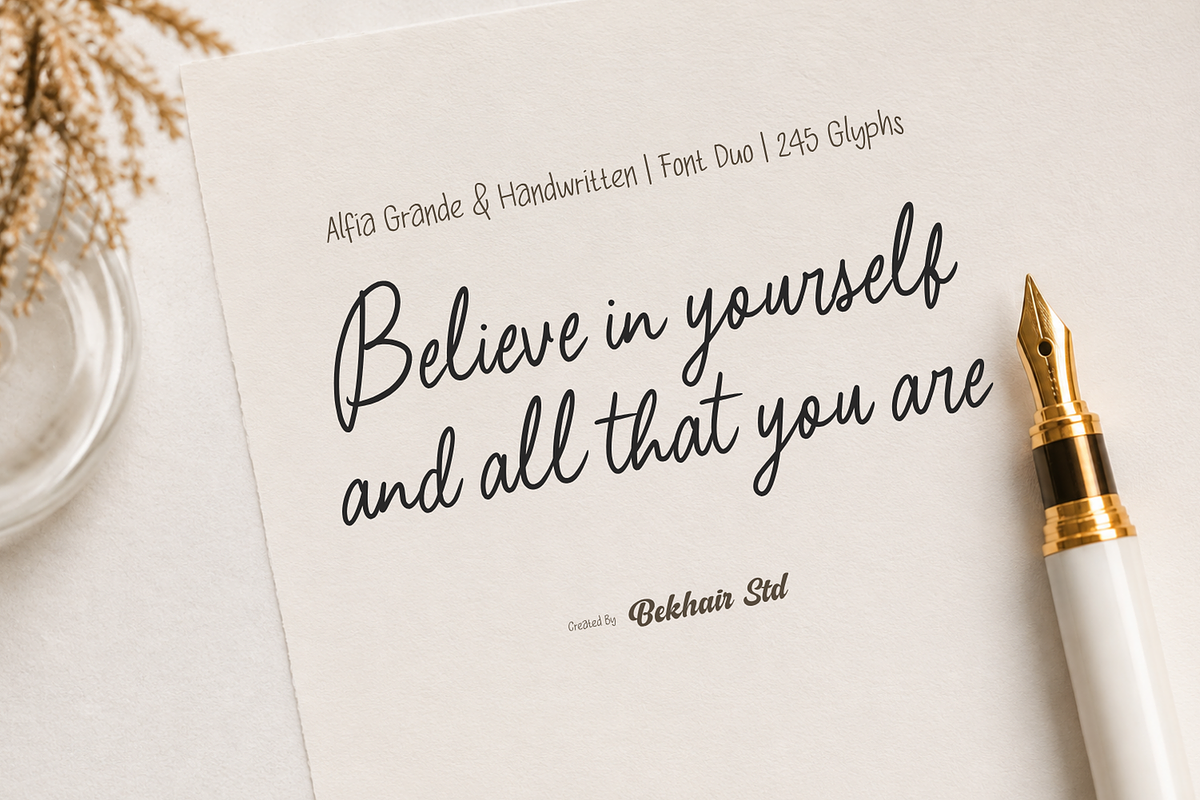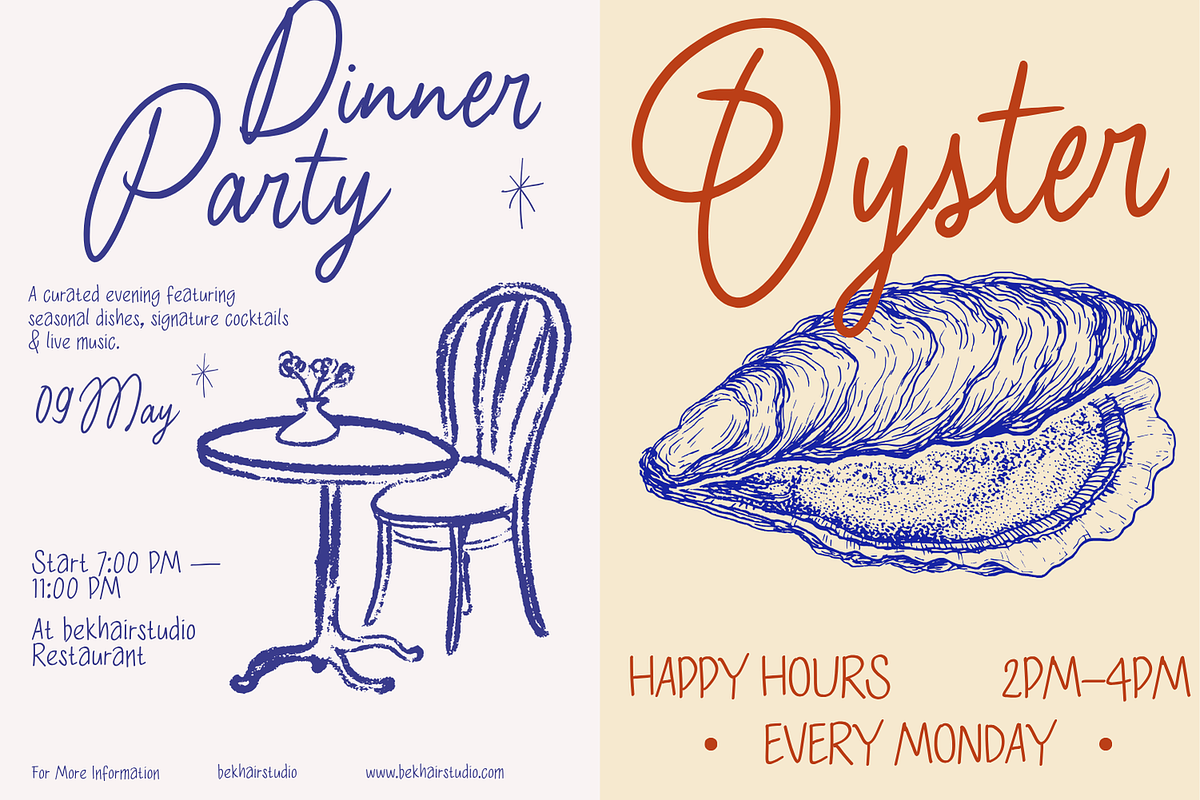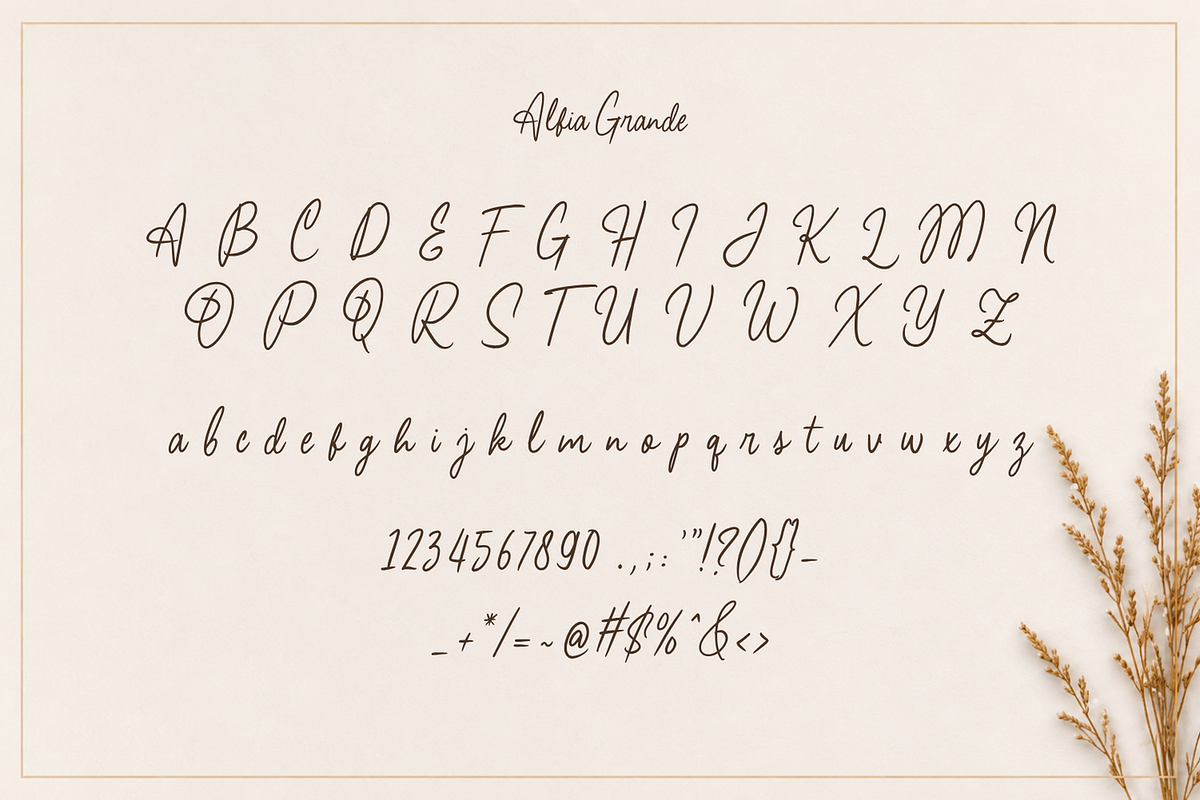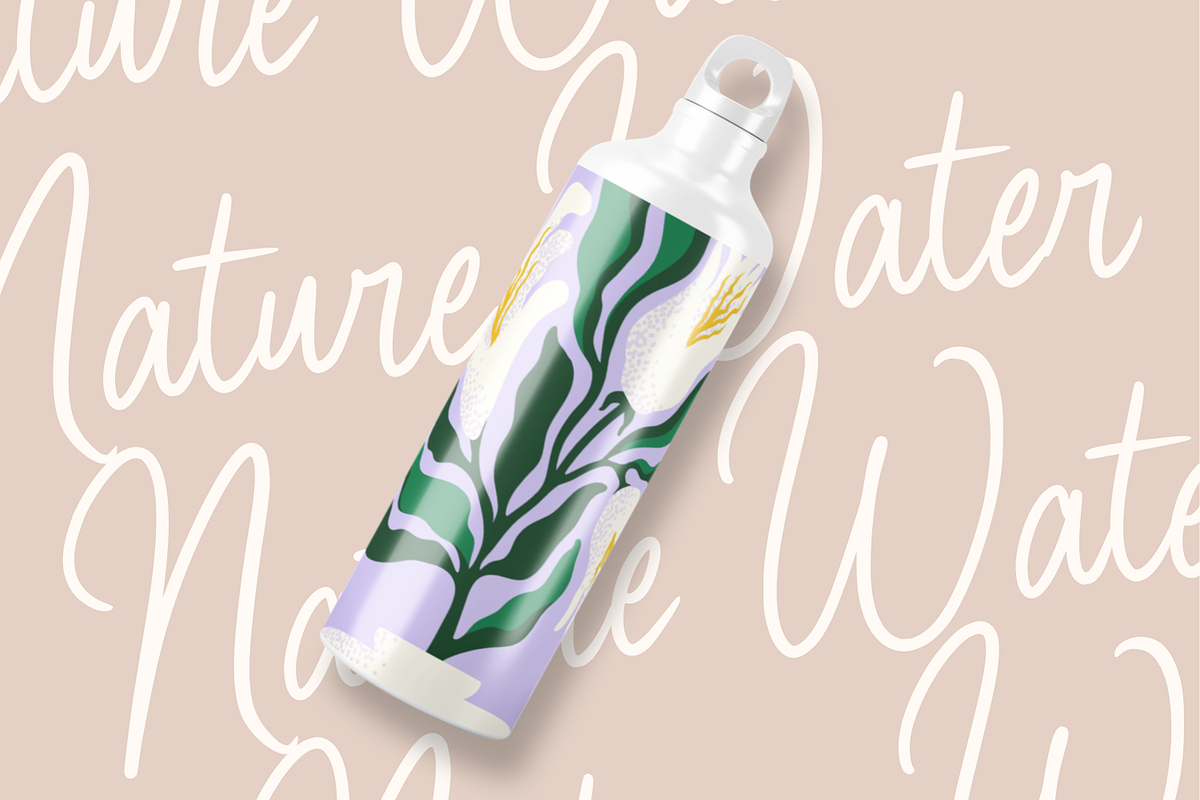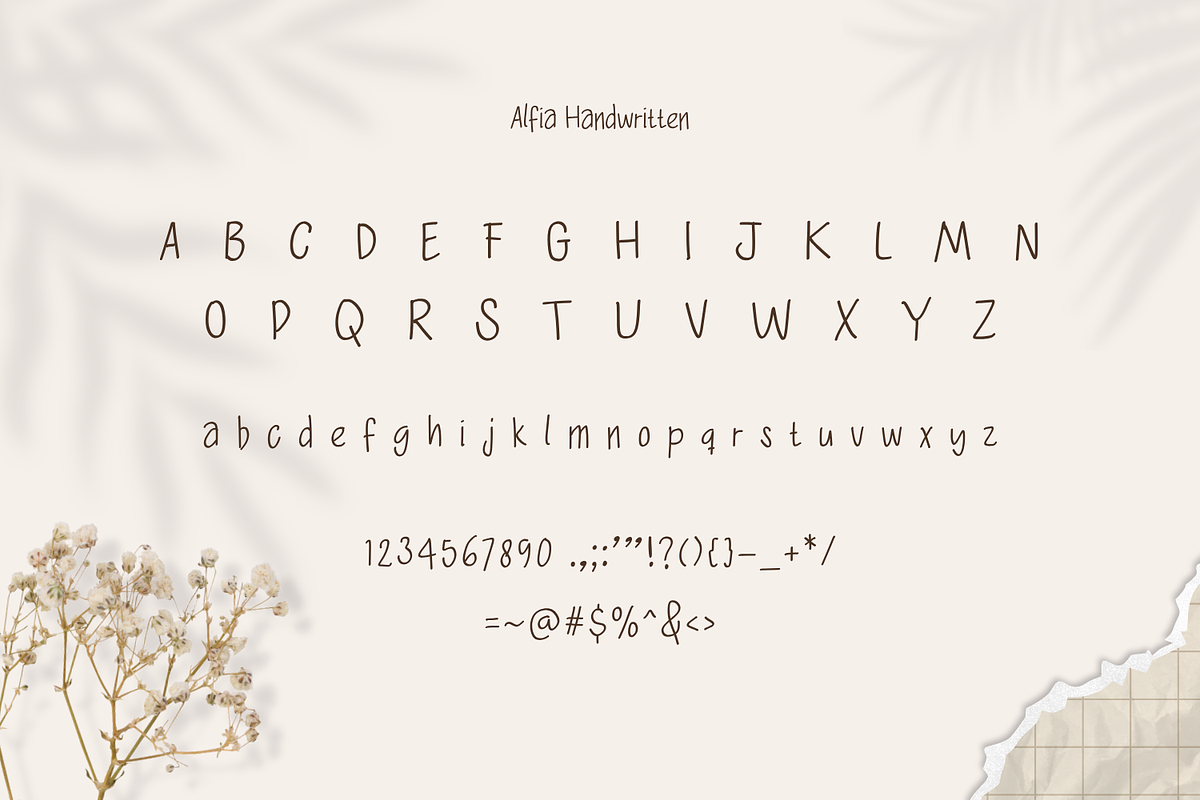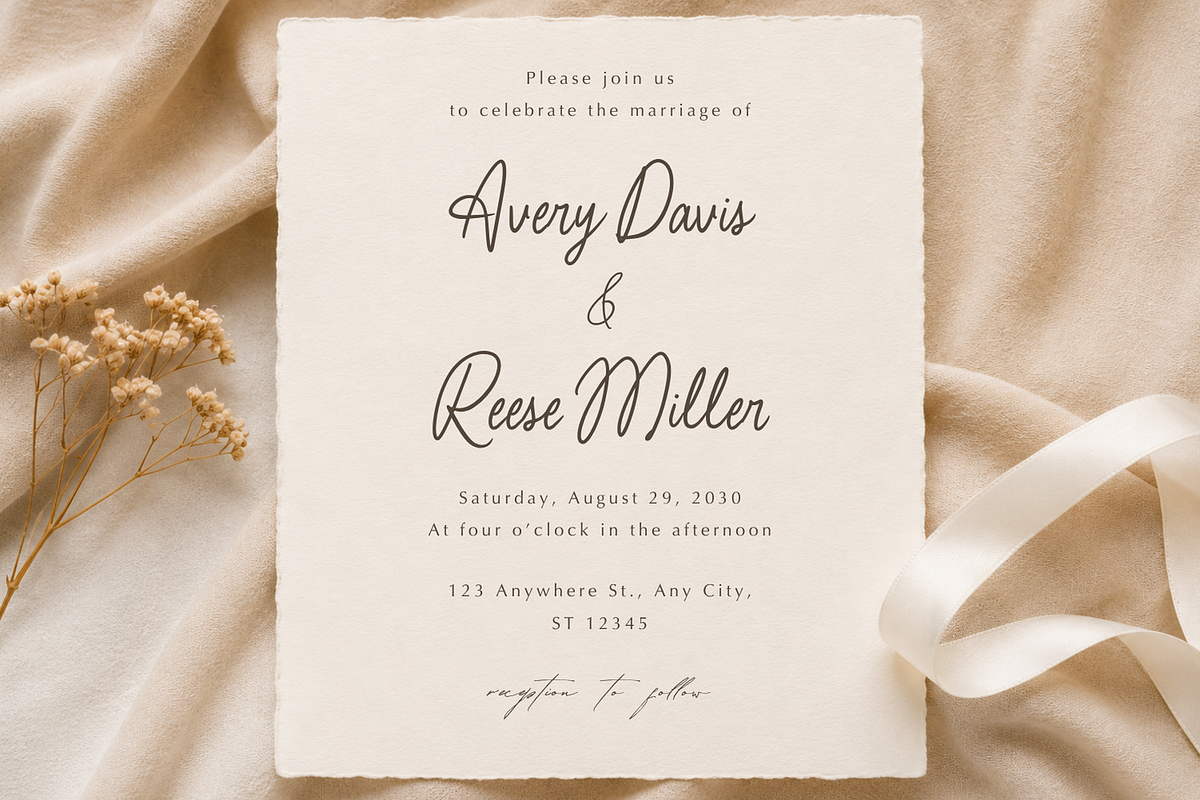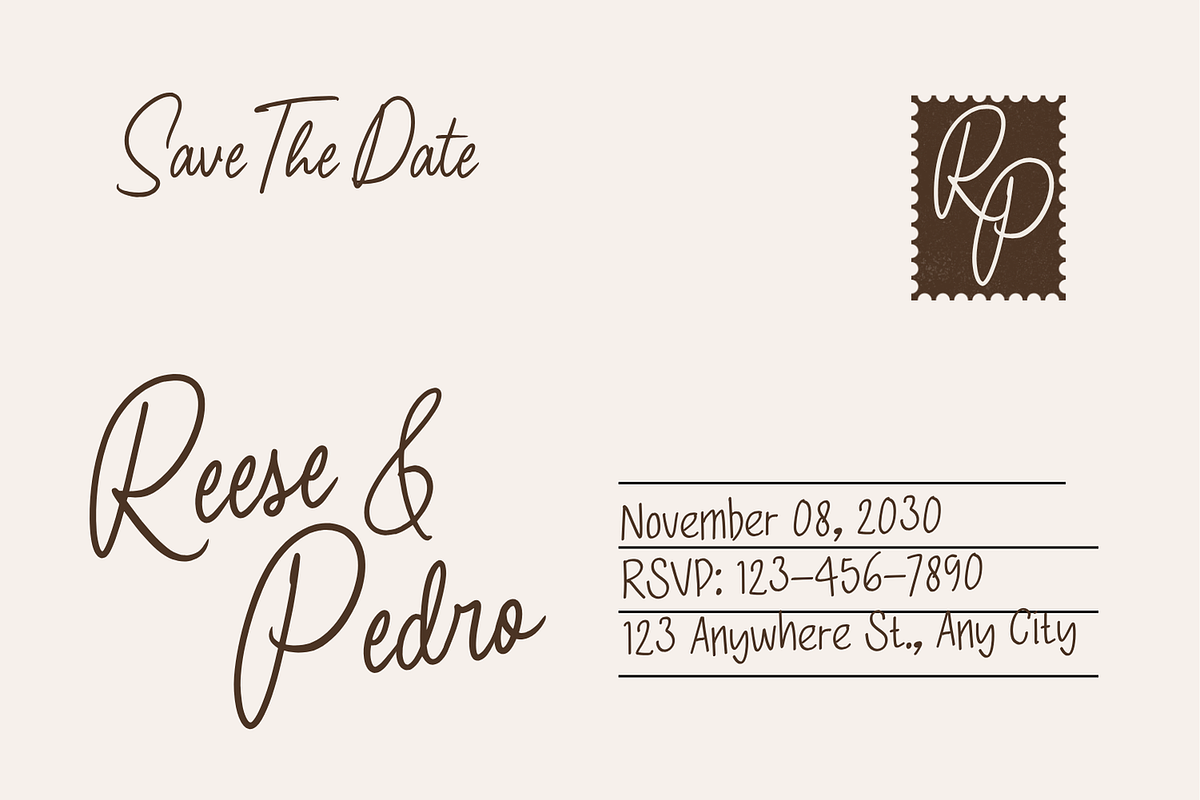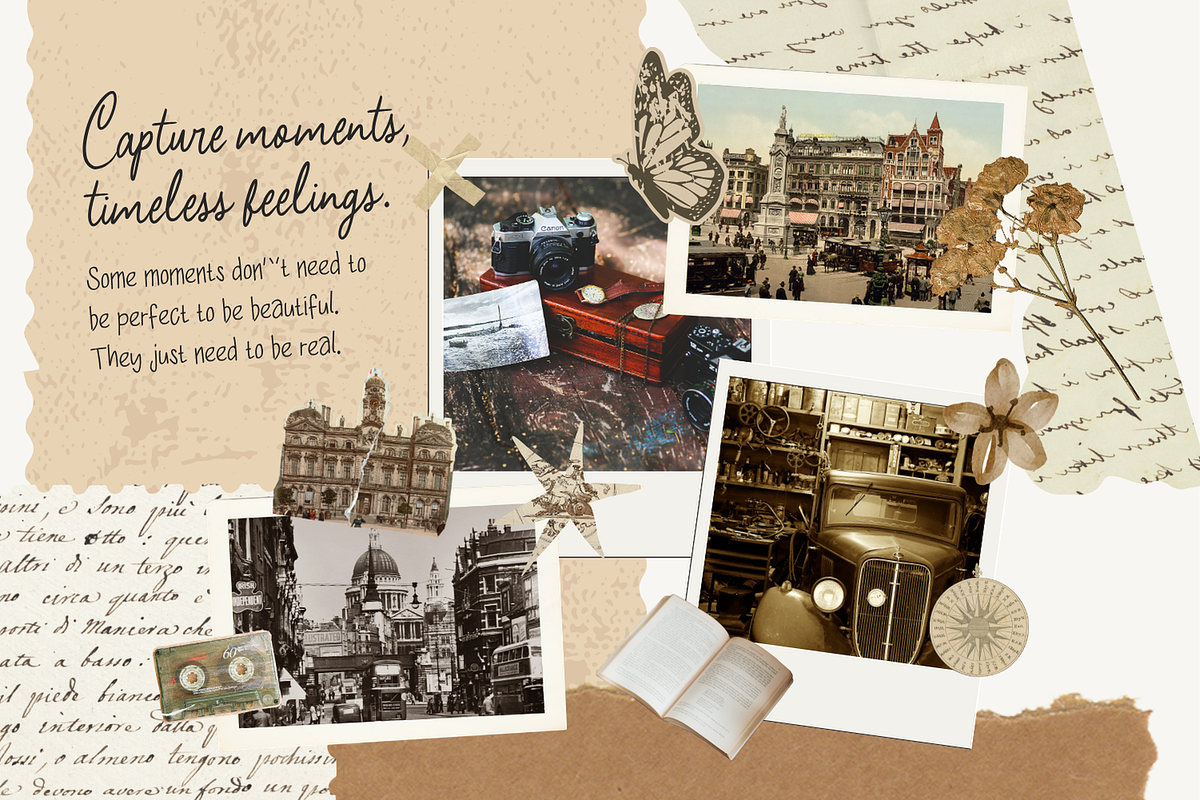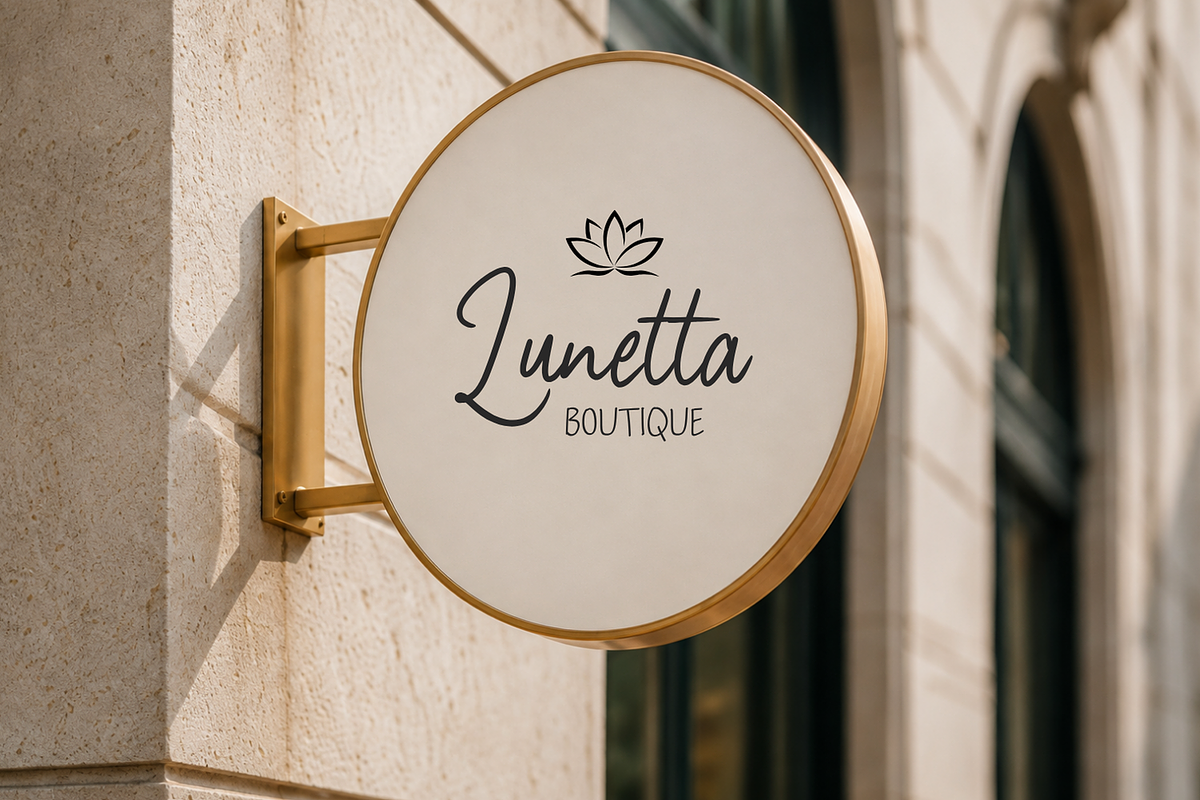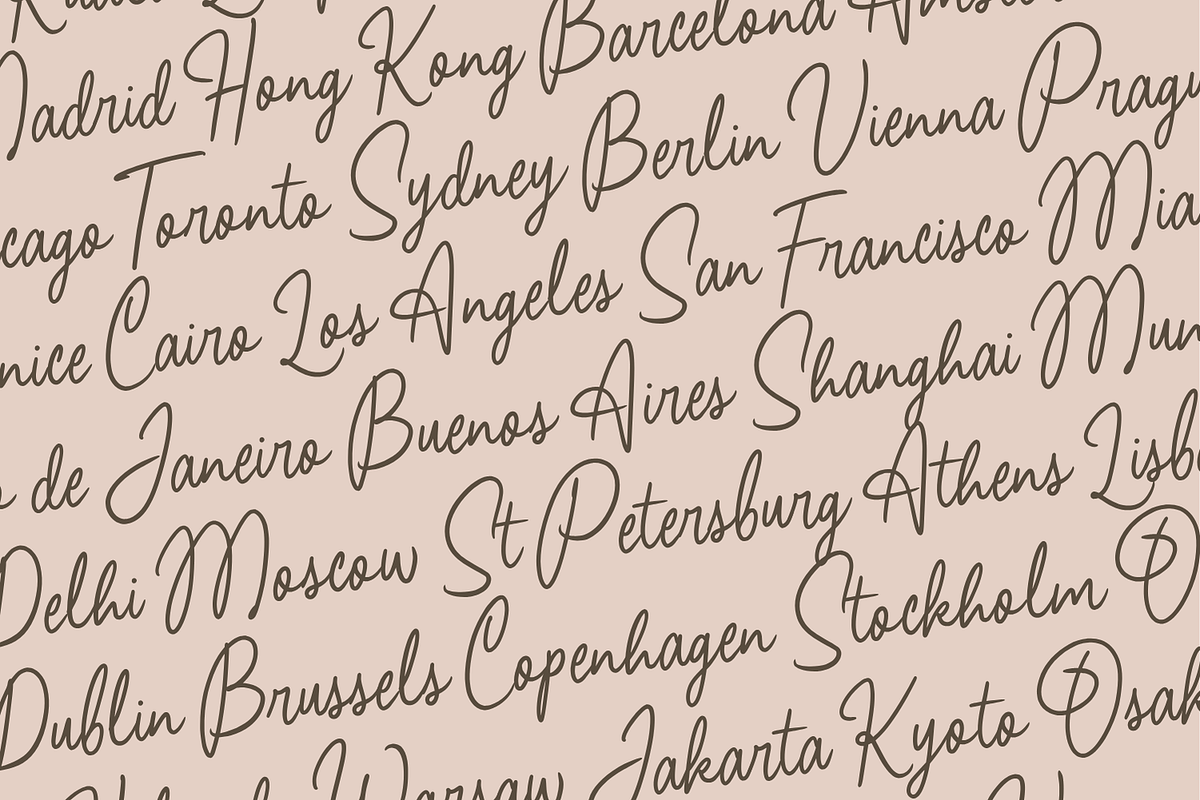
Alfia Grande - Font Duo Script Font
Alfia Grande – Elegant Handwritten Script Font
Alfia Grande is a graceful handwritten script font designed to bring a personal, elegant, and romantic touch to your creative projects. Its flowing strokes, delicate curves, natural letterforms, and stylish handwritten character make it ideal for designs that need warmth, personality, and a refined handmade feel.
Alfia Grande works beautifully for logos, branding, wedding stationery, invitations, greeting cards, packaging, beauty products, fashion, boutique branding, café materials, social media graphics, posters, apparel, quotes, and editorial designs.
The font includes a complete uppercase and lowercase alphabet, numbers, and punctuation, making it versatile for both short decorative phrases and complete branding applications. Its elegant script style is especially effective for names, headlines, signatures, quotes, and prominent display typography.
Elegant handwritten script style
Smooth, flowing letterforms
Feminine, romantic, and sophisticated character
Uppercase and lowercase letters
Numbers and punctuation
Excellent for logos, packaging, stationery, apparel, and branding
Works well for both print and digital applications
Easy to combine with clean serif or sans-serif fonts
Alfia Grande is a great choice for designers, stationery creators, wedding professionals, small businesses, fashion brands, beauty brands, photographers, and anyone looking for an elegant handwritten identity.